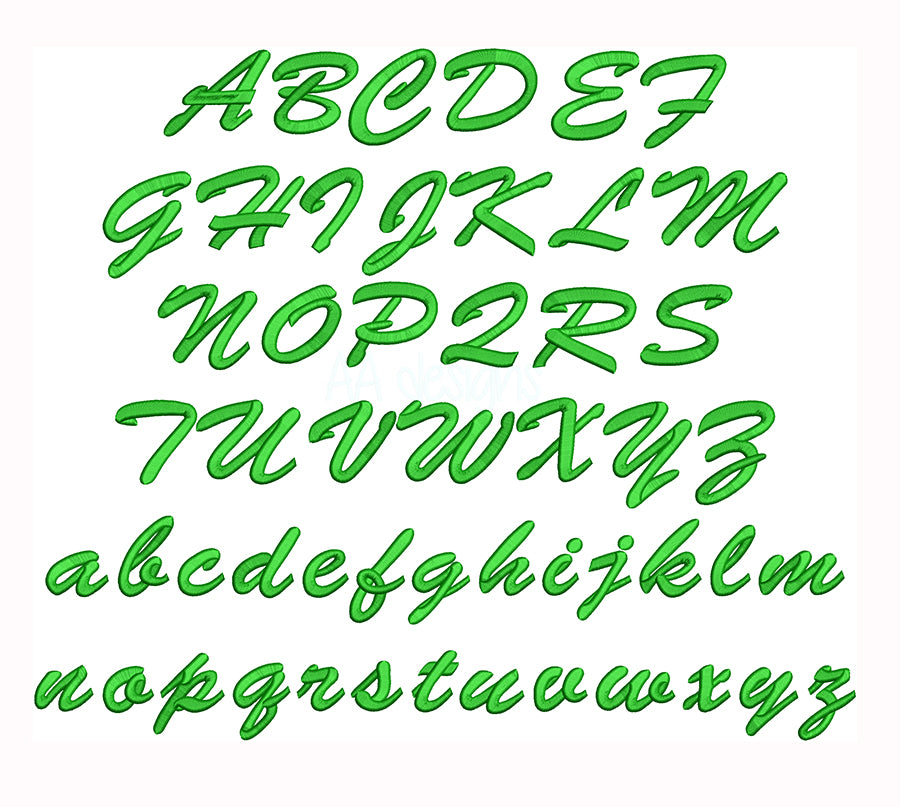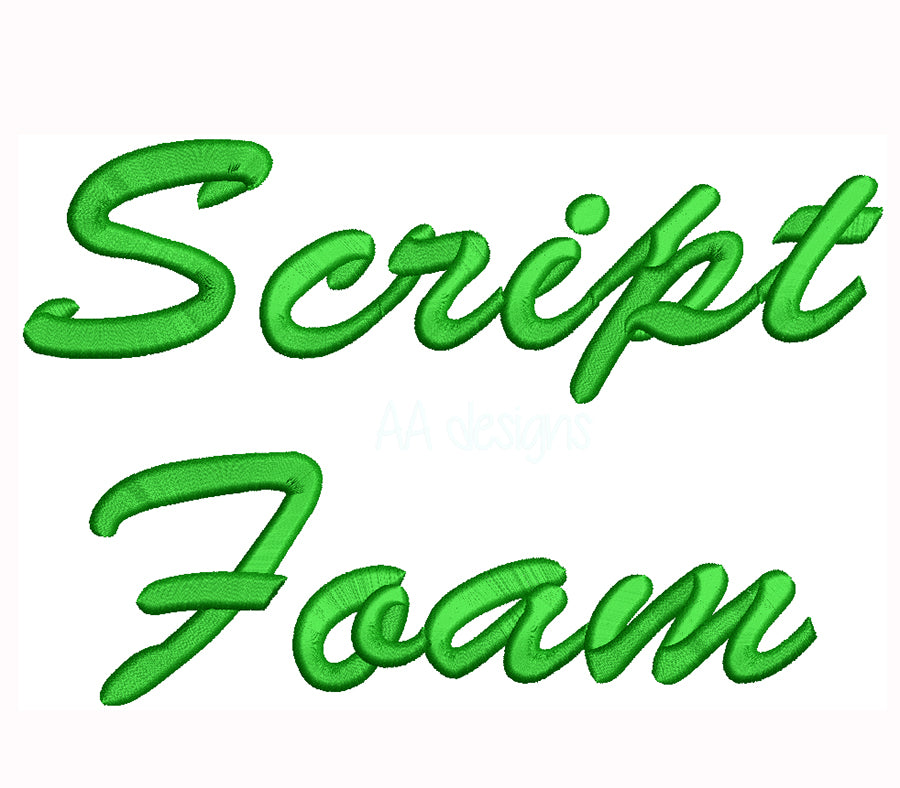
Script 3D Puff Embroidery Font
Bring timeless elegance to life with the Script 3D Puff Embroidery Font — a flowing, handwritten-style font engineered specifically for 3D puff foam embroidery that adds stunning dimension and sophistication to any project. ✍️✨🧵
The graceful, connected letterforms of this script font take on beautiful raised texture when stitched over puff foam, making it ideal for monograms, bridal accessories, boutique apparel, personalized gifts, and premium fashion items where elegance is everything.